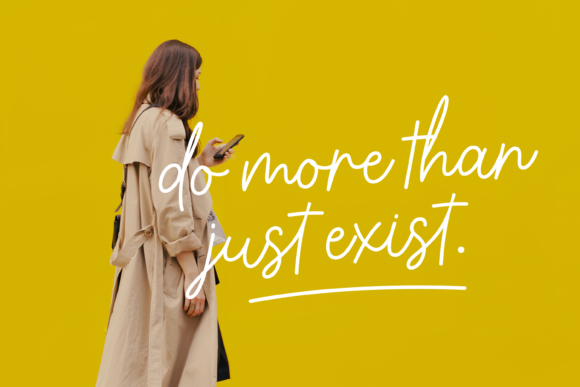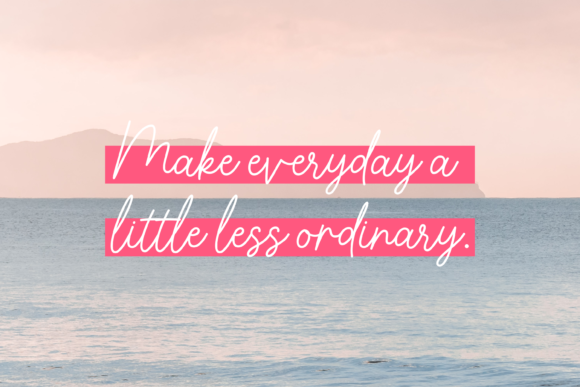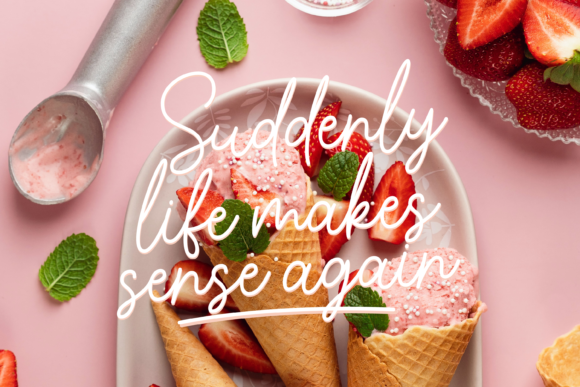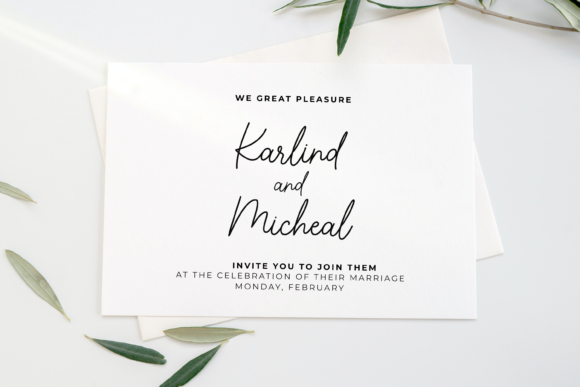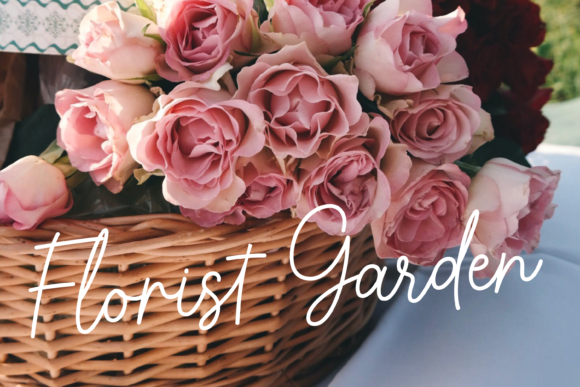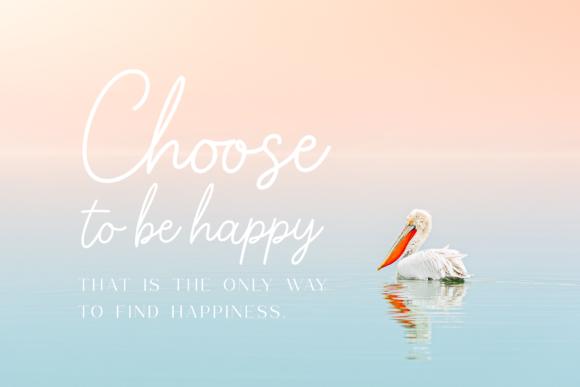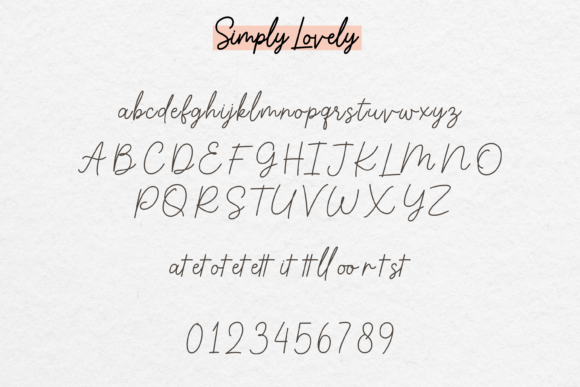
Simply Lovely Font
About Simply Lovely Font
Simply Lovely is a delicate script font featuring charming, playful characters that seem to dance along the baseline. Add this font to your most creative ideas, and notice how it makes them stand out!